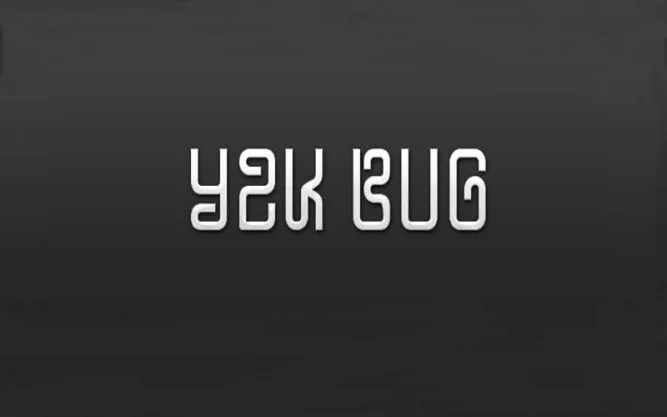
The Y2K Bug Font is an elegant techno and display typeface that has a unique and attractive look that provides a great tone to any text. This amazing font was created and published by Raymond Larabie.
This display font consists of only one unique style. Moreover, it contains 121 unique glyphs and 189 characters. This typeface is suitable for most unique style design operations.
This font is a perfect choice for many purposes such as poster advertisements, technical documents, logo designs, web or programming design, game titling, app designs, branding, fabric industry, and much more.
Having great language support and versatile appearance, it is largely suitable for designing display capabilities. As you should see in the pictures we have entered here and can be found on anchor fonts.
Y2K Bug Font
We can clearly see in the picture that after a lot of hard work and passion, the design team has created this mind-blowing typeface for us. Therefore, it also has great potential in wide displays.